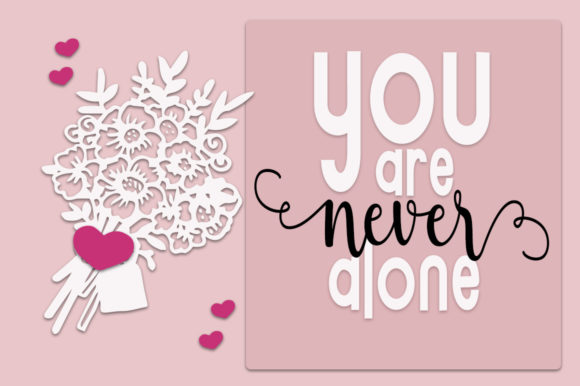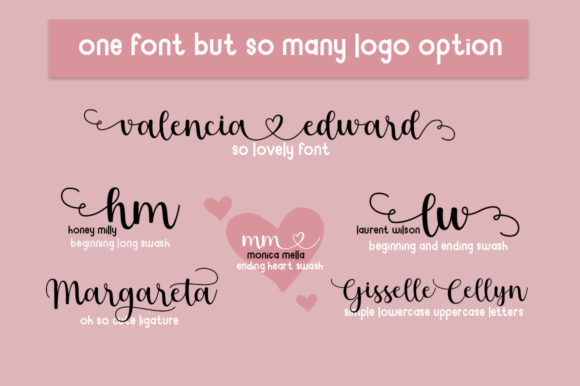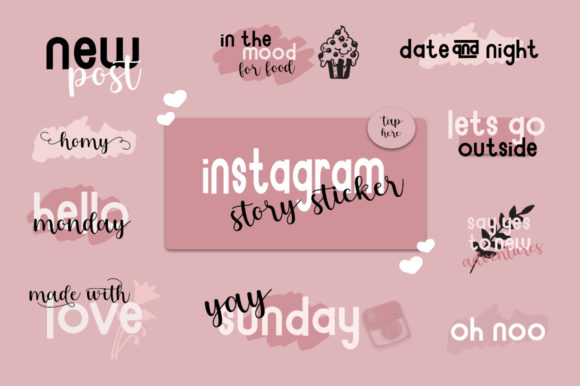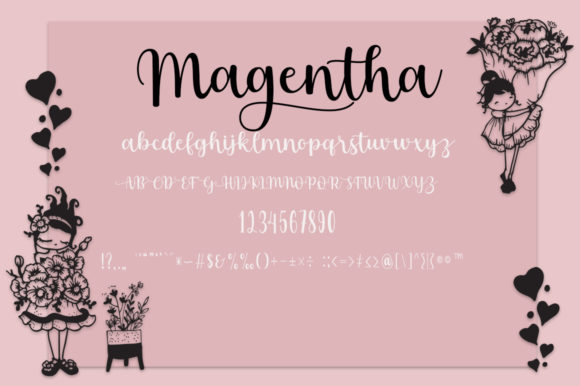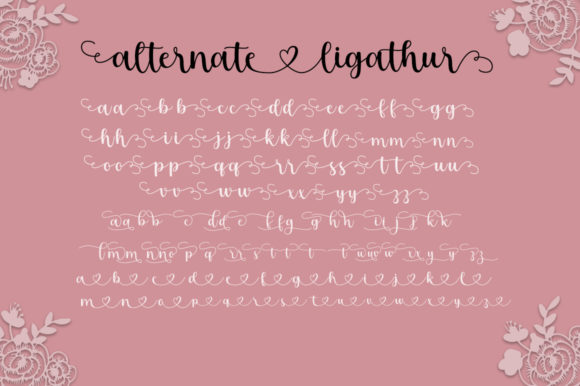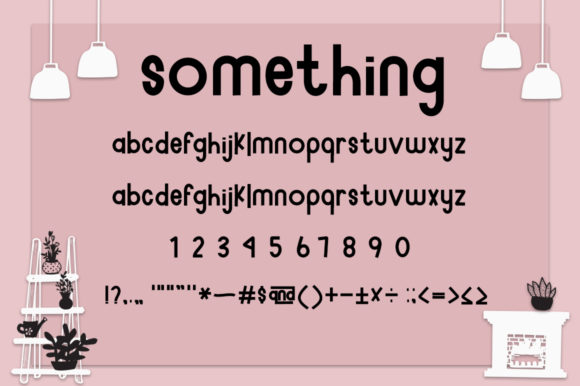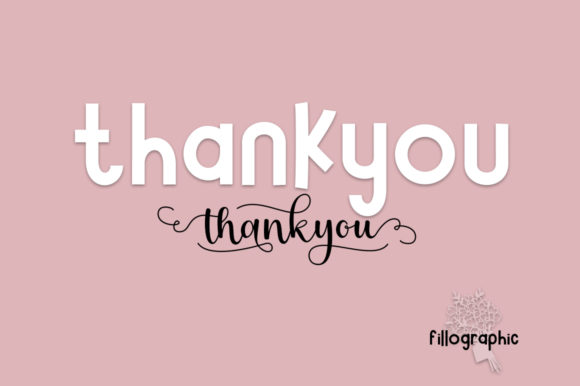
Something Magentha Font
About Something Magentha Font
Something Magentha is an elegant and dainty duo font (handwritten and sans serif), that features sweet and delicate swashes. This original look will appeal to a wide range of crafty ideas, from letterheads and titles, to stationery. This font is PUA encoded which means you can access all of the glyphs and swashes with ease!